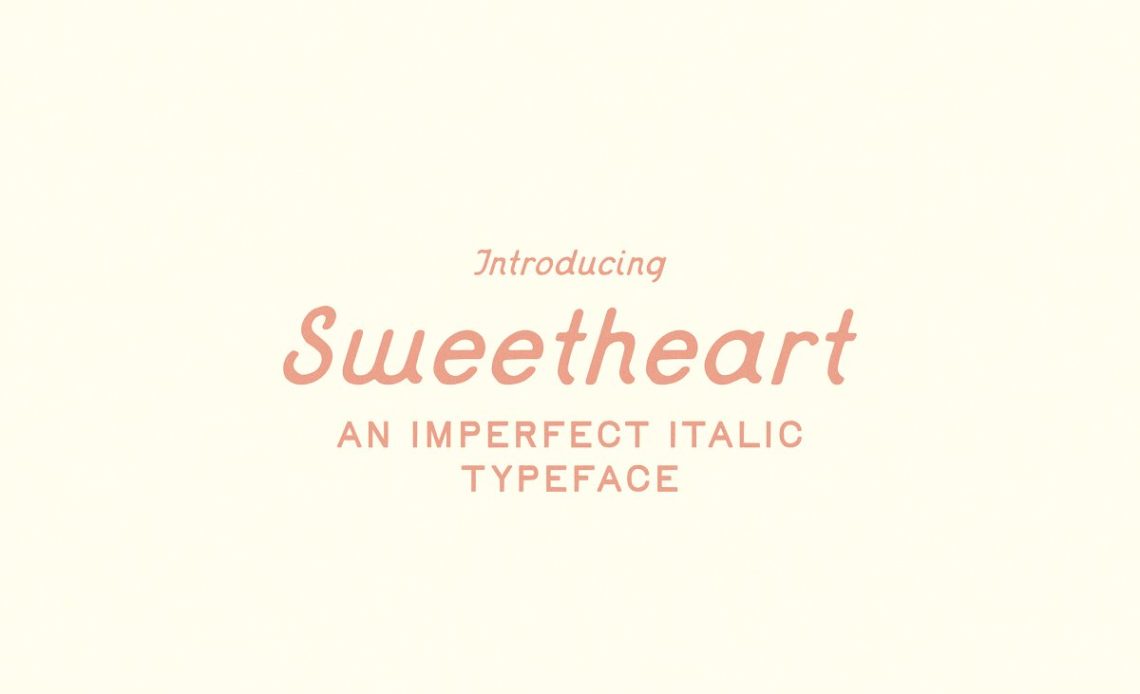
Looking for the perfect font to add some personality and charm to your display board? Look no further than Sweetheart, the Best Font For Display Board! Created by the talented Taylor Penton, this handmade italic font is sure to capture the hearts of anyone who lays eyes on it.
What sets Sweetheart apart from other script fonts is its unique, handcrafted feel. Inspired by old love notes, every letter is carefully crafted to evoke a sense of warmth and intimacy. Whether you're using it for a wedding invitation or a social media post, Sweetheart is the perfect way to add a personal touch to your design.
With both upper and lowercase letters, numbers, and basic punctuation, Sweetheart is incredibly versatile and can be used for a wide range of projects. Its elegant curves and flowing lines make it the ideal choice for anything from logos to packaging design.
But Sweetheart isn't just a pretty face - it's also a powerful tool for capturing attention and conveying emotion. Its playful yet refined style is perfect for creating a sense of warmth and friendliness, making it a great choice for businesses looking to create a personal connection with their customers.